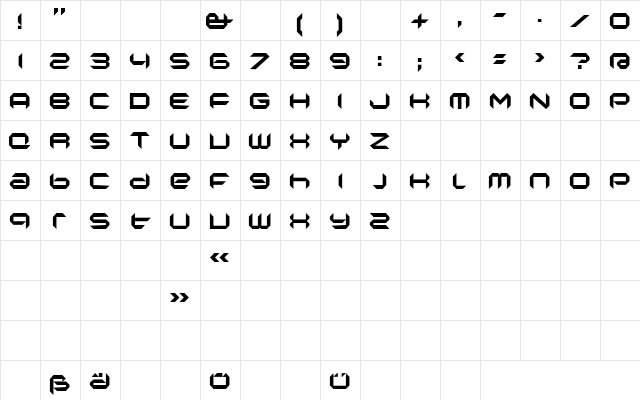
Nano low Font Preview
Nano low
Nano low Font Details
Design Context for Nano Typeface
Nano offers clean, dependable letterforms without strong stylistic allegiance, making it a practical choice for designers who need flexibility.
Pro Tip: Pair Nano with a font of contrasting weight or personality to build a more expressive typographic hierarchy.